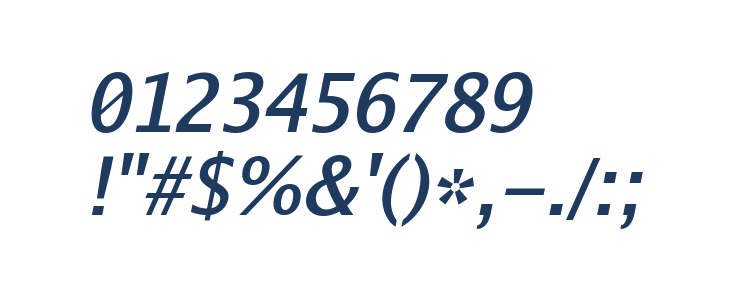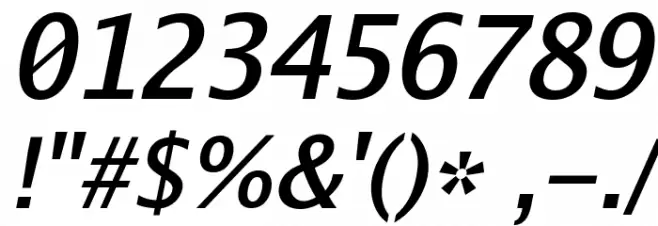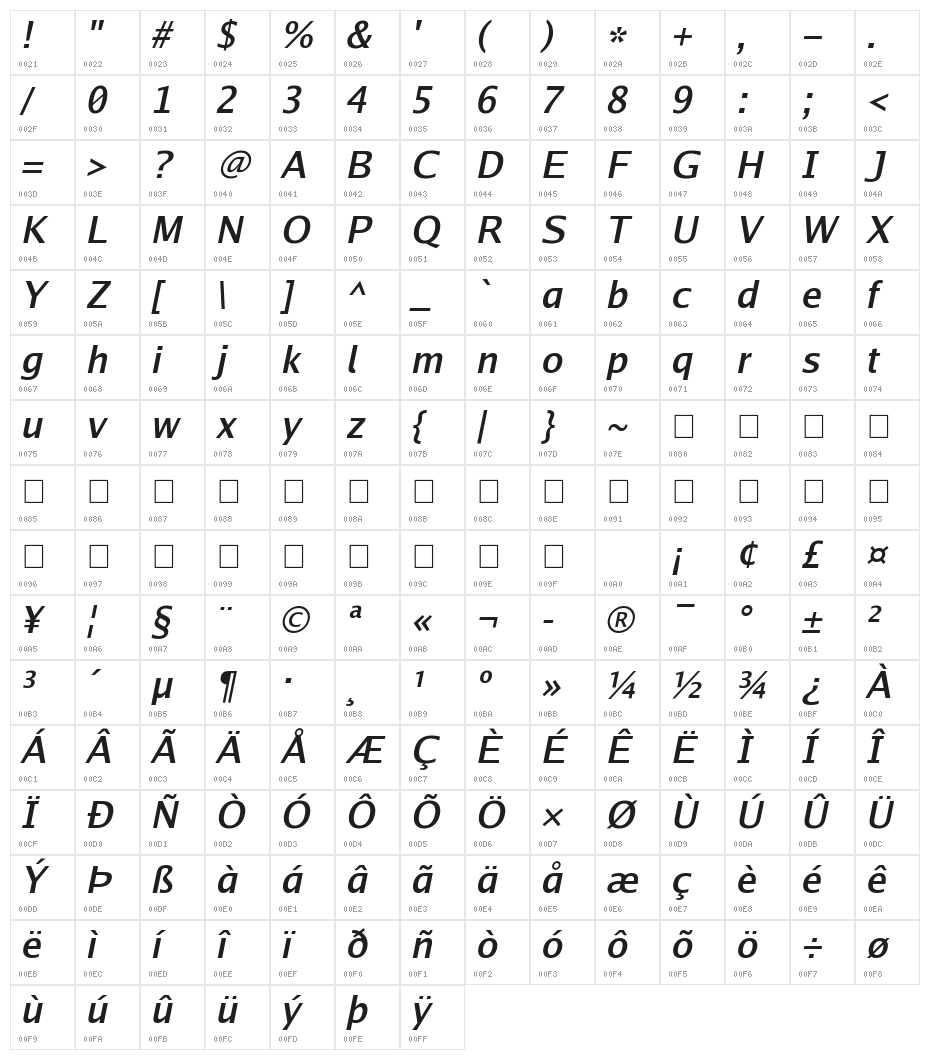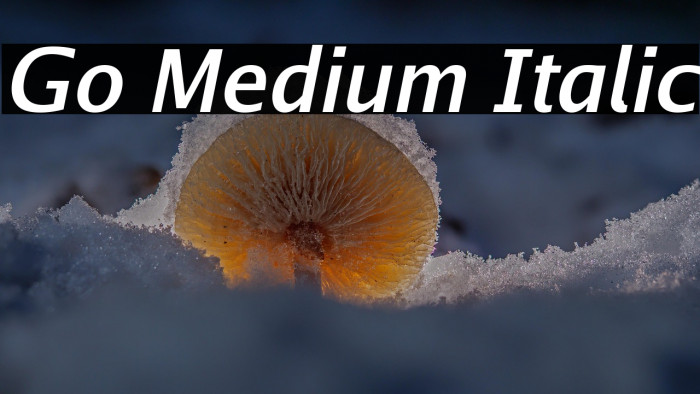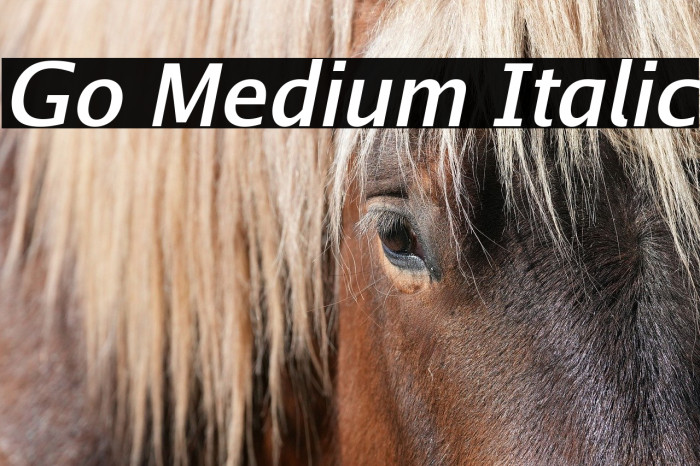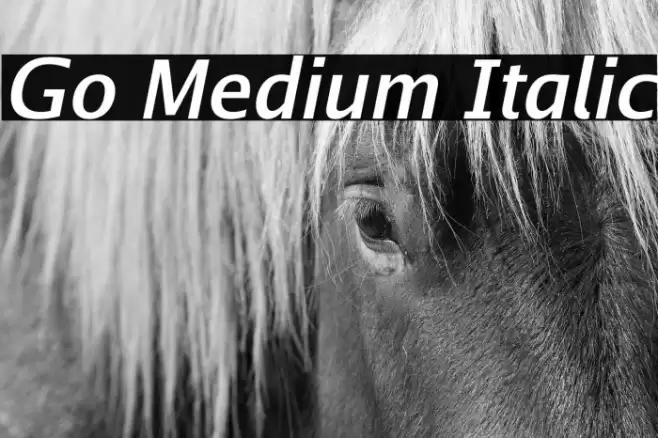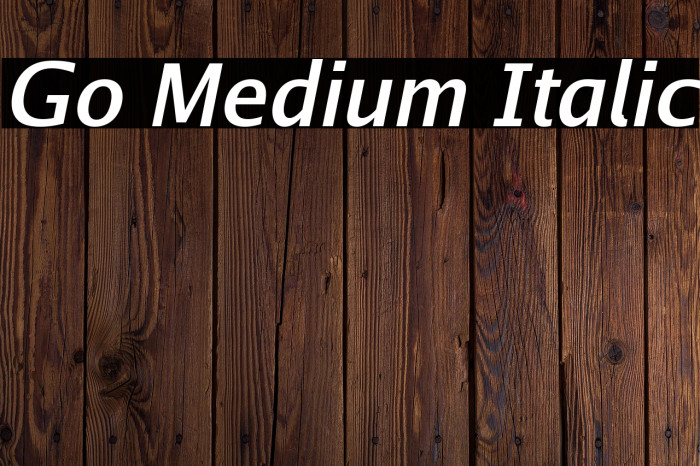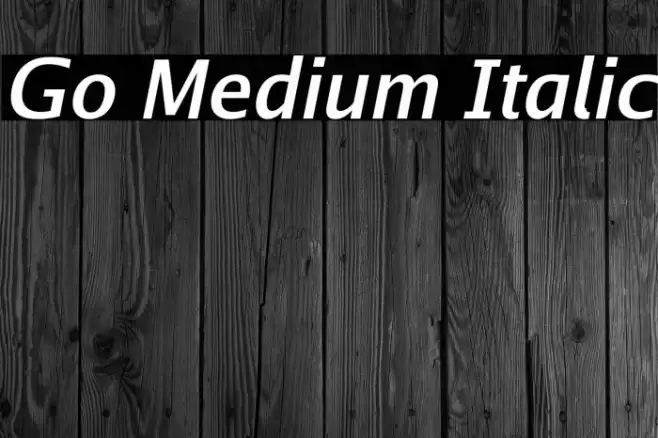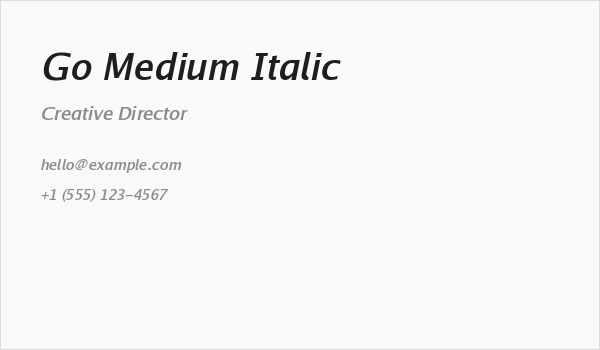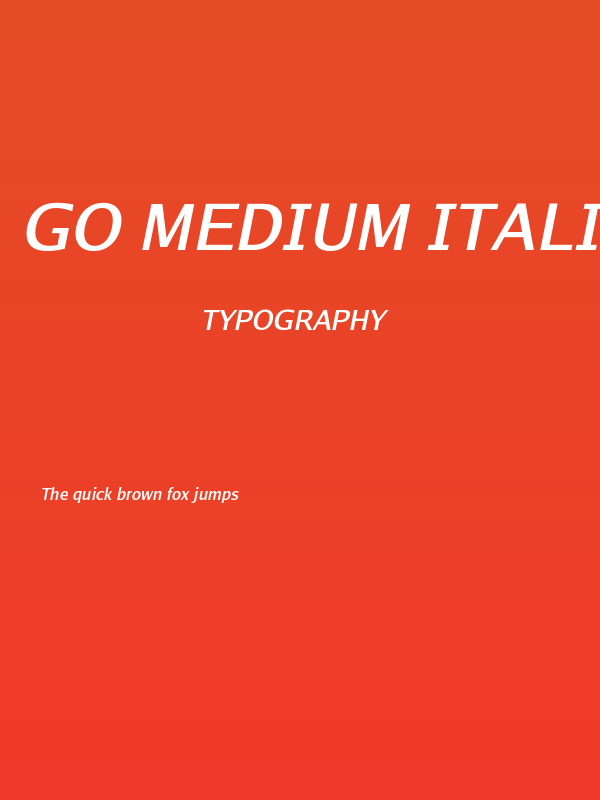
Go Medium Italic Font
Go Medium Italic Description
This typeface features a clean and modern design with a slight italic slant, giving it a dynamic and forward-moving appearance. The characters are well-proportioned with a consistent stroke width, providing a balanced and harmonious look. The uppercase and lowercase letters maintain a uniform style, ensuring readability and versatility. The numerals are clear and distinct, making them suitable for various applications. Special characters are included, enhancing the font's utility for diverse projects. Overall, this font combines elegance with functionality, making it ideal for contemporary design needs.
Use CaseHeadlines, Body text, Logos
Proposed ProjectsIdeal for branding, editorial design, websites, and advertising materials.